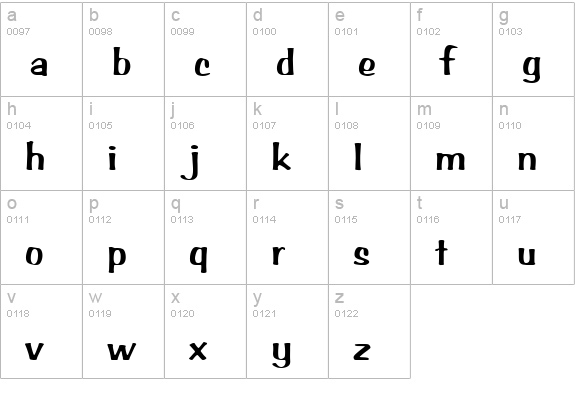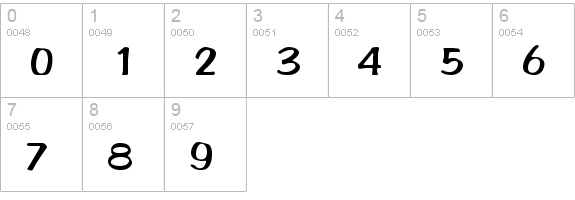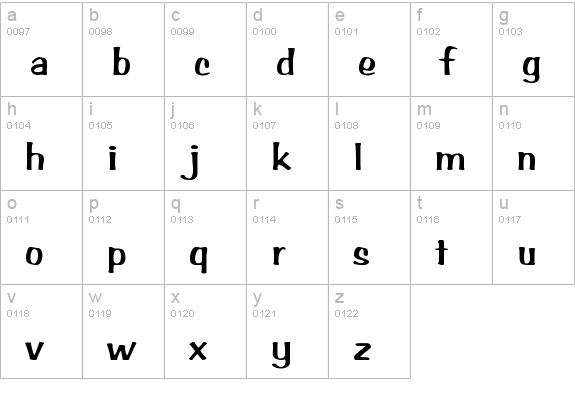
ArabBruD Font Details
Introducing ArabBruD font, a stunning display typeface that exudes elegance and sophistication. This unique font combines classic Arabic calligraphy with a modern twist, making it perfect for a wide range of design projects. ArabBruD features intricate details and flowing lines that create a sense of beauty and grace. The best part? ArabBruD is available for free download at FontsMarket.com. Yes, you read that right - this exquisite font can be yours at no cost. Whether you're working on a branding project, a poster design, or any other creative endeavor, ArabBruD will add a touch of luxury and style to your work. Don't miss out on the opportunity to enhance your designs with this exceptional font. Download ArabBruD today and elevate your projects to new heights of sophistication and refinement.